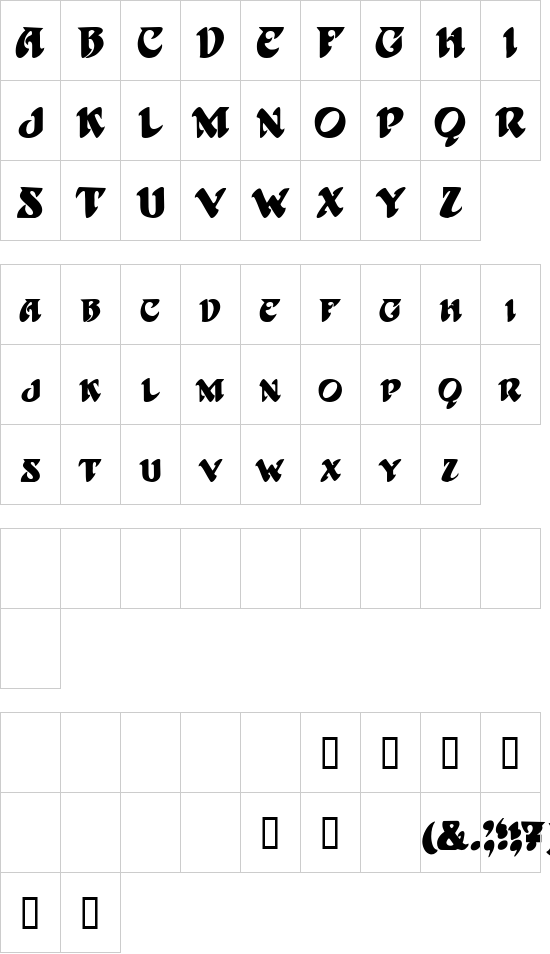
Harbinger is a bold, dramatic display font with sharp, imposing letterforms that carry a sense of foreboding. The strokes are heavy and angular, terminals taper to points, and a brooding tension runs through the alphabet that feels built for warnings and dark announcements. It commands attention at large sizes.
Use Harbinger for fantasy game titles, horror movie posters, metal album covers, and dramatic event headlines. It also suits trailer typography and dark book covers. Harbinger is free to download as a TrueType file, and you can preview it with your own text to see how the sharp letterforms render your headline.